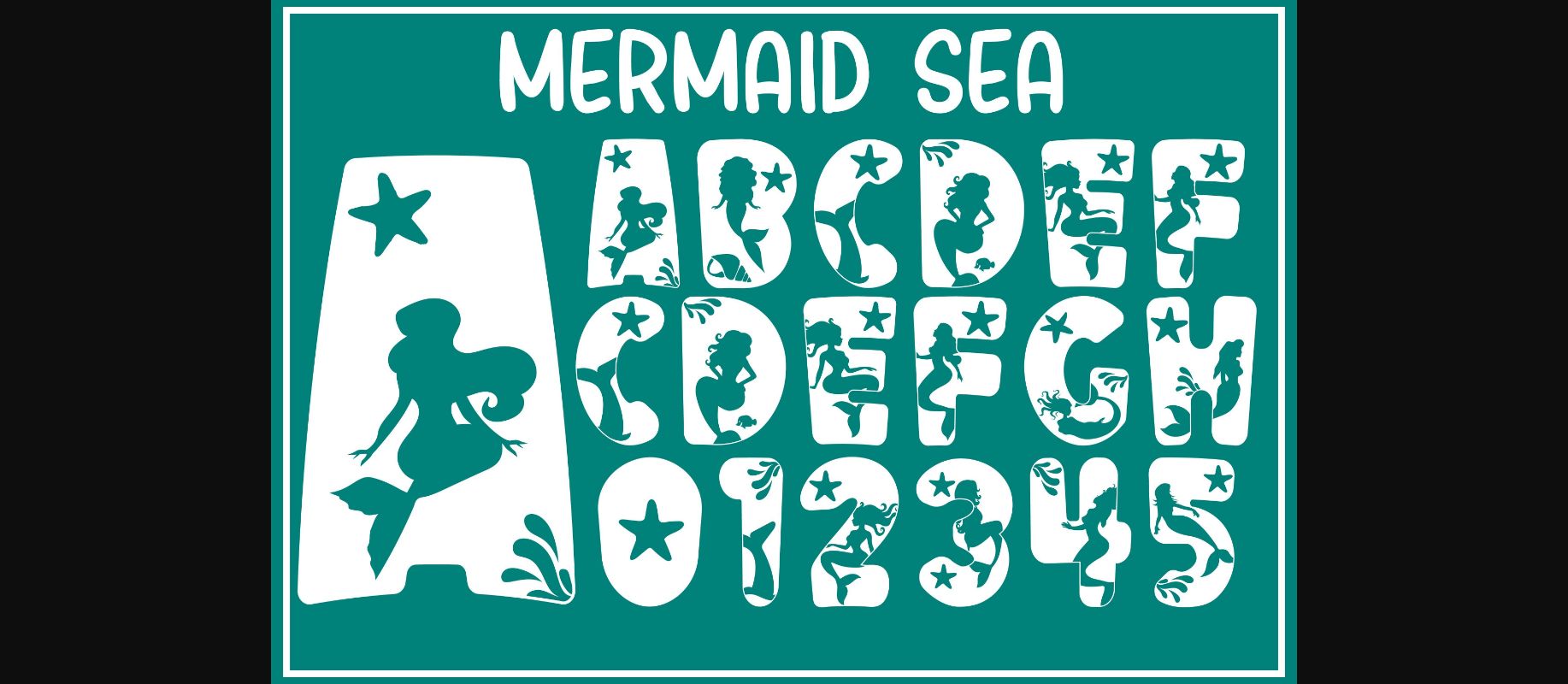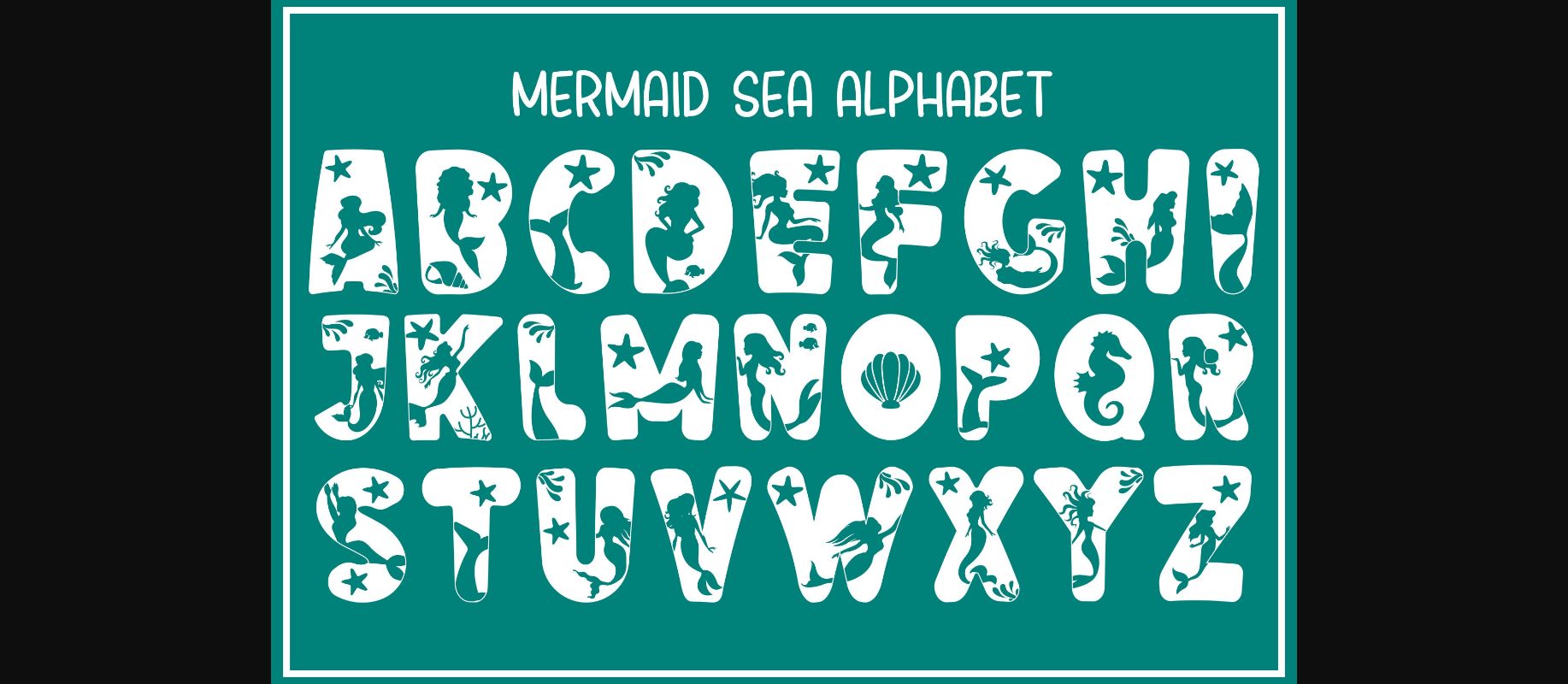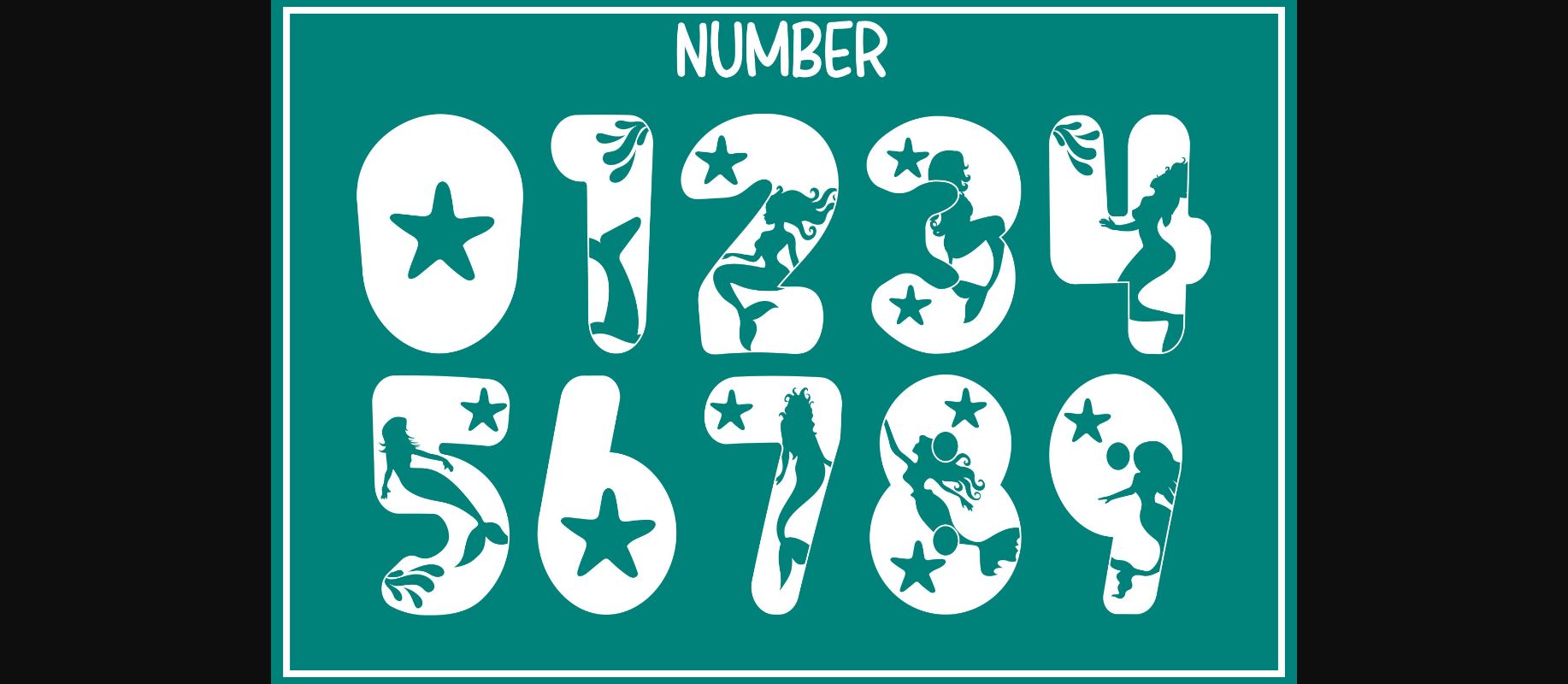
About Mermaid Sea Font
Mermaid Sea is a playful and cool decorative font. No matter the topic, this font will be an incredible asset to your fonts’ library, as it has the potential to elevate any creation.